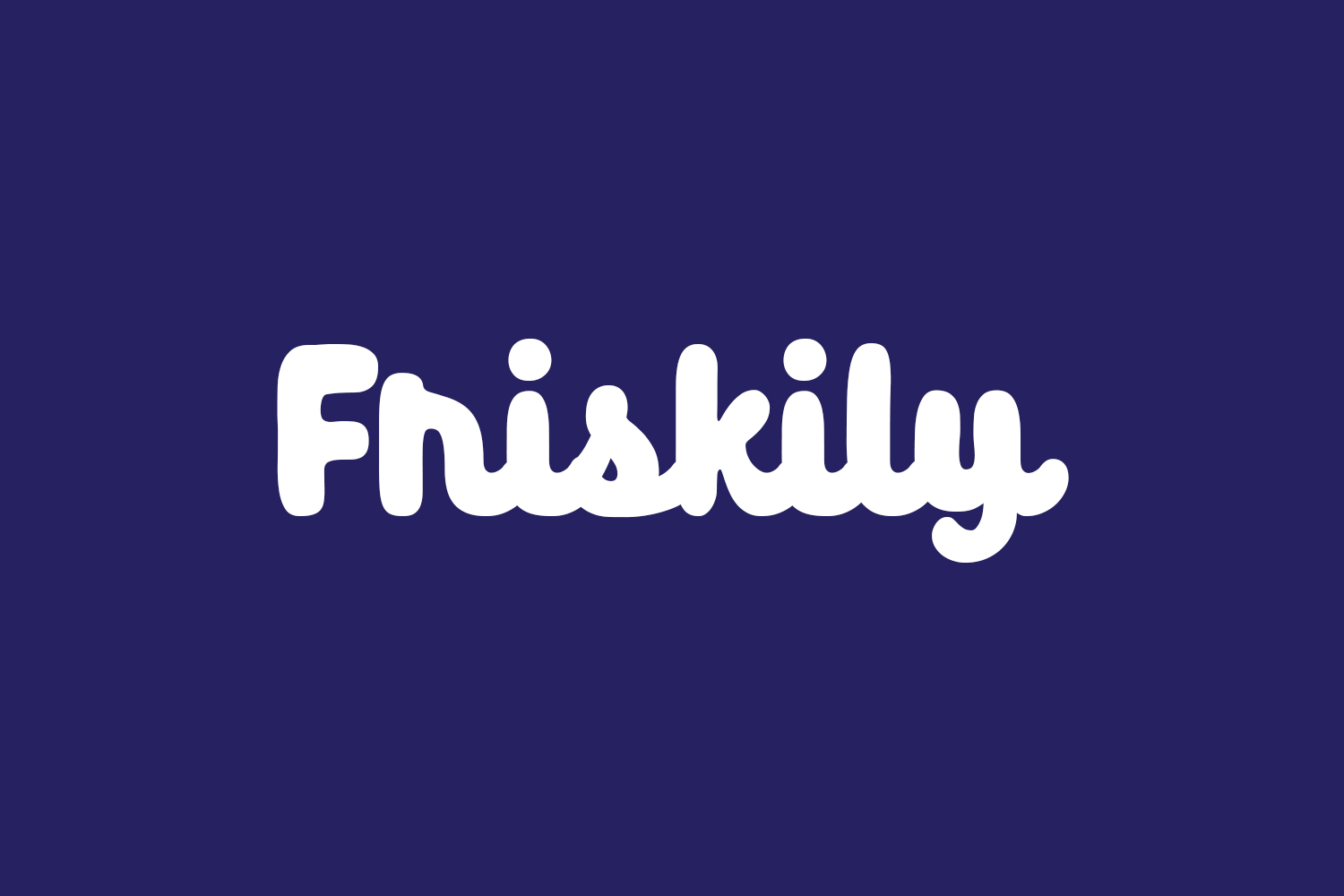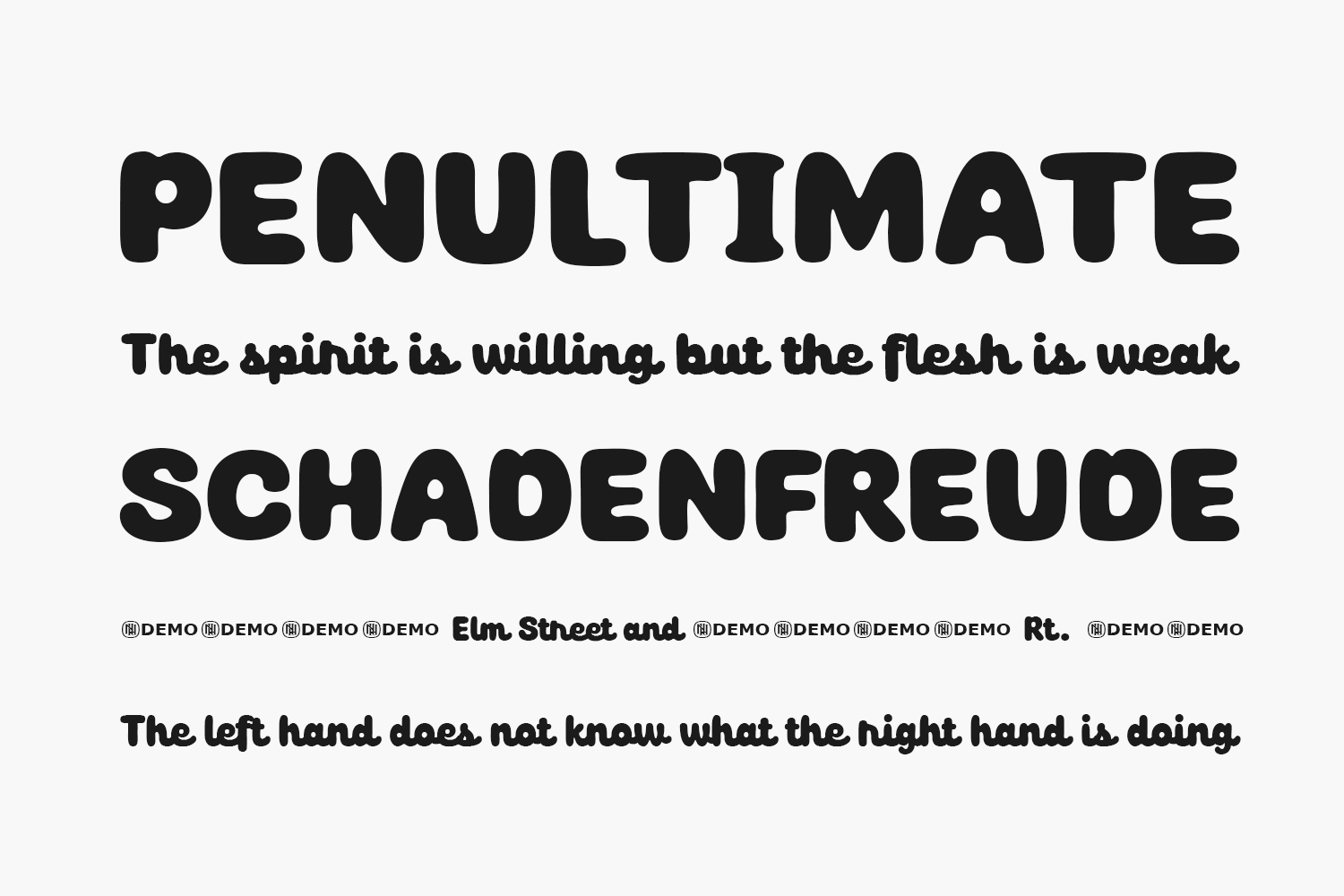
Discover Friskily Free Font, a captivatingly soft yet boldly crafted handwritten font. Embracing a delightful retro vibe, this versatile typeface is bound to captivate attention on headlines, magazines, logos, branding, and a plethora of other design projects. Unleash its charm on your creations today. Friskily Free Font is a demo and free for personal use only. Please purchase the full version for commercial use.
Designed by Niskala Huruf